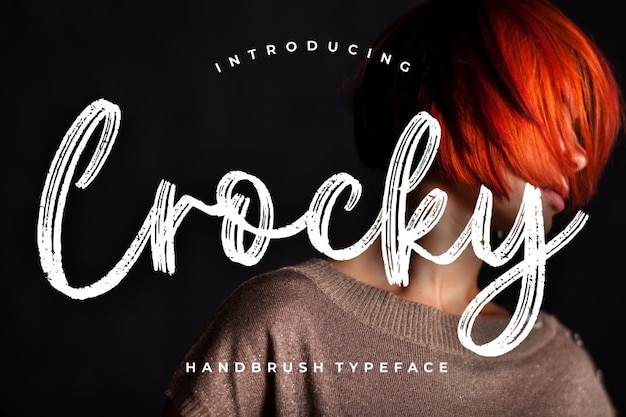
Crocky Font
Creatype Studio
Crocky is like a handwritten masterpiece created with a brush, a true handbrush gem. Its letters carry a decorative charm that's a blend of rustic and artistic. Perfect for when you want your text to feel personal, yet stylish. Crocky adds a touch of raw elegance to your designs, as if each word were crafted by a talented artist's hand.